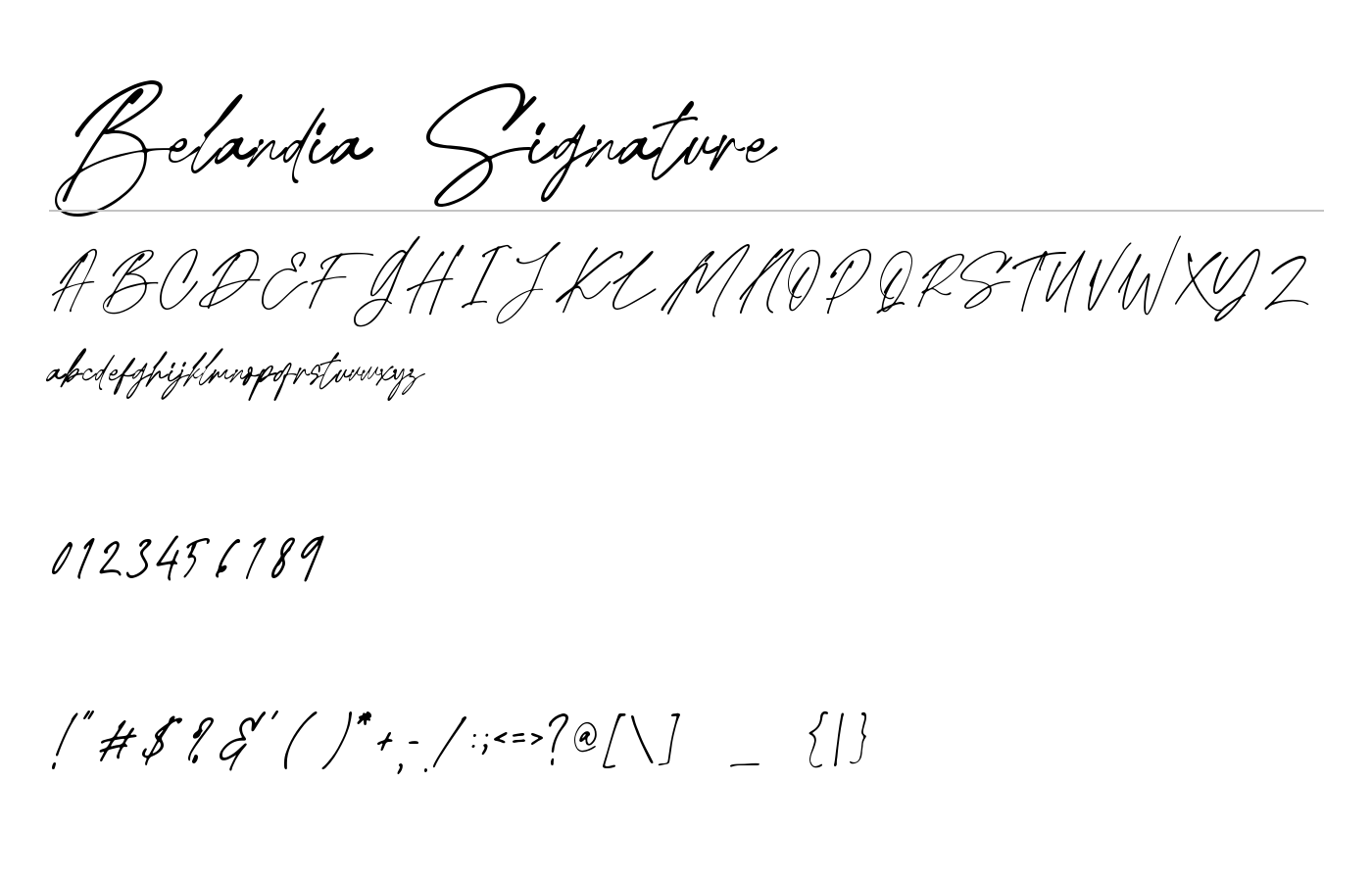
Belandia Signature Font is an elegant, flowing script font that mimics natural handwriting with its delicate, thin strokes and slight slant. Its tall, airy letterforms and smooth connections create a stylish, personal feel, making it ideal for luxury branding, invitations, and sophisticated logos. This font’s light and graceful style adds a touch of refinement and authenticity to projects seeking a modern, handwritten look.
Belandia Signature Font
About Belandia Signature Font
| Designer | (MJB Letters). 2021. (Muhammad Mujibulloh) |